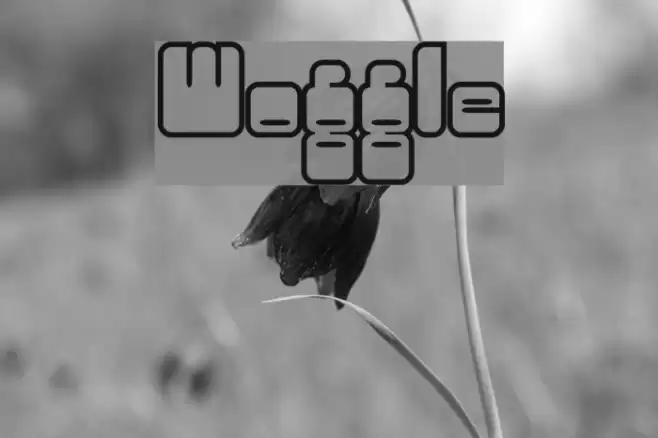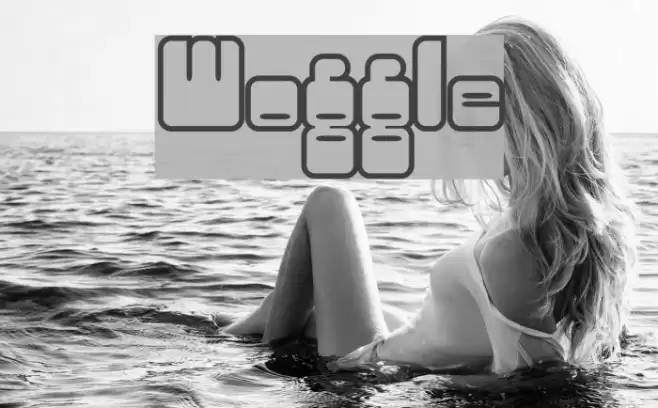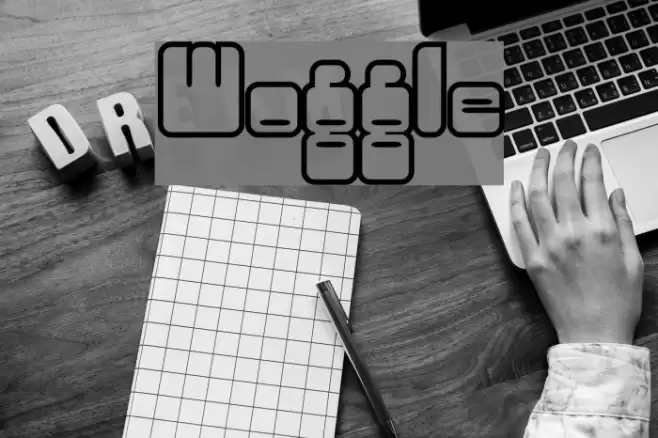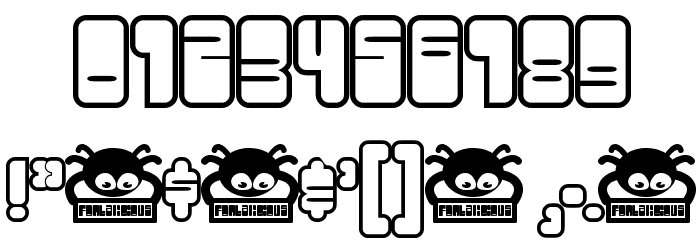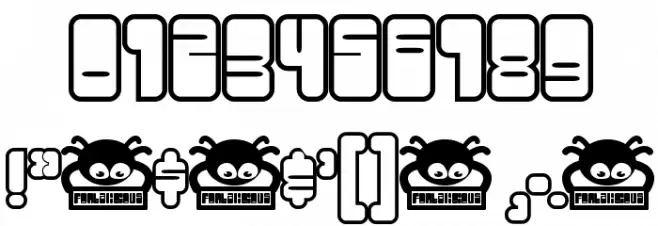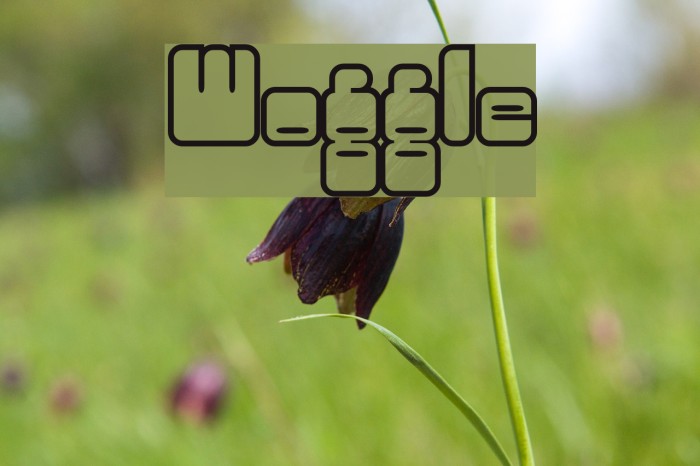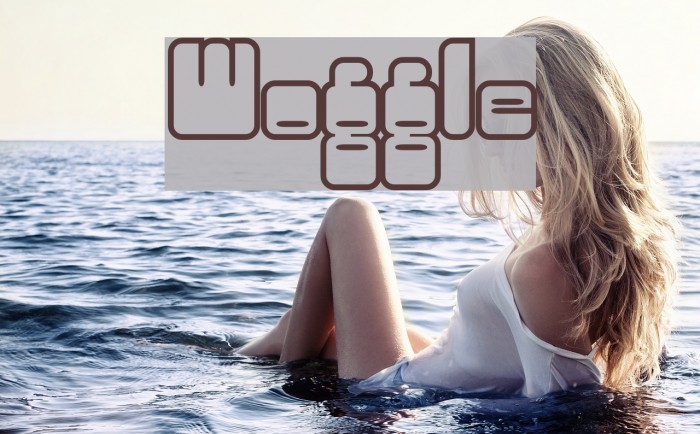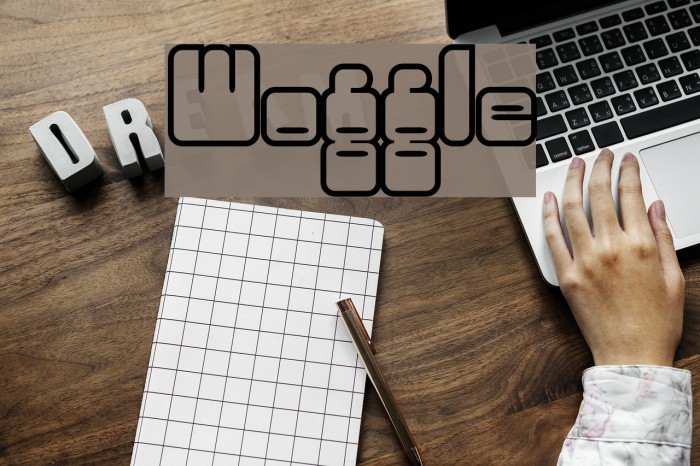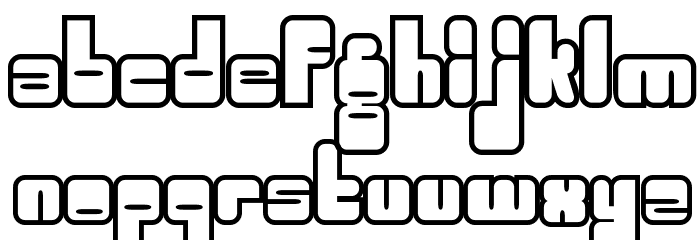
Woggle Font
Woggle Description
This font features a bold, playful design with thick, rounded outlines that give it a cartoonish and friendly appearance. The characters are uniformly wide, creating a cohesive and balanced look. The uppercase and lowercase letters share a similar style, with the lowercase being slightly more compact. Numbers and special characters maintain the same playful aesthetic, making the font versatile for various uses. The overall design is eye-catching and suitable for projects that require a fun and informal touch.
A bold, playful font with rounded outlines and a cartoonish style from Outline fonts.
- Proposed Projects: Ideal for children's books, comic strips, playful branding, and party invitations.
- Overall Style: Playful, Cartoonish